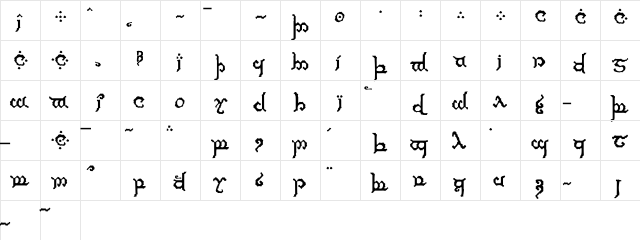
Tengwar Marzabul Regular
| Foundry | High-Logic |
| Designer | High-Logic - Erwin Denissen 1999 |
Design Context for Tengwar Marzabul Typeface
Tengwar Marzabul offers clean, dependable letterforms without strong stylistic allegiance, making it a practical choice for designers who need flexibility.